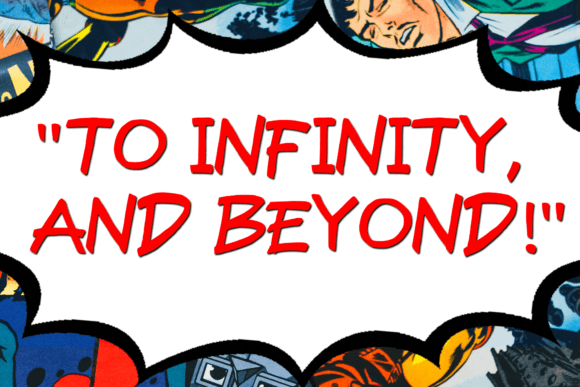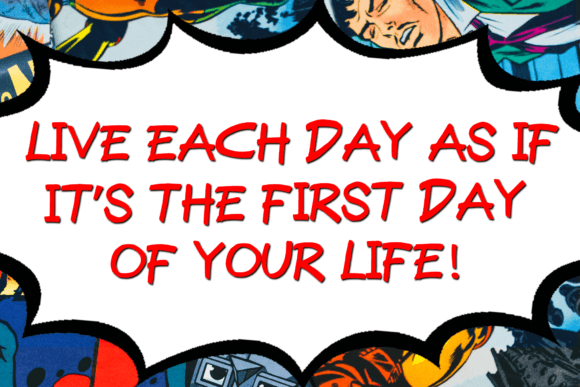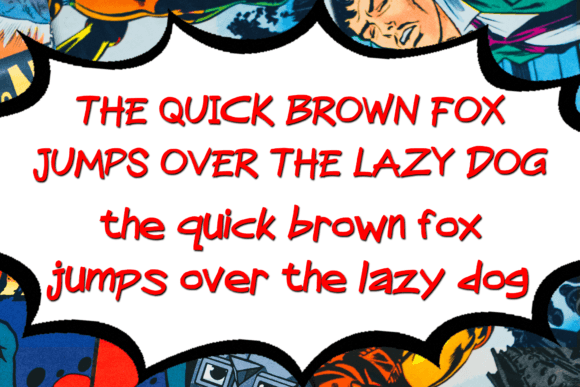
Introducing Action Comic Font: The Ultimate Handwritten Font for Creative Designs
Are you a designer or crafter looking for a font that can add a playful and energetic touch to your projects? Look no further than the Action Comic Font! This handwritten font is perfect for creating a wide range of designs, from t-shirts and kids’ book designs to greeting cards, stickers, and posters. With its incredibly versatile style, Action Comic Font is sure to become a favorite in your design toolkit.
What is Action Comic Font?
Action Comic Font is a carefully crafted handwritten font that exudes energy and playfulness. Its casual and relaxed style makes it perfect for designs that require a friendly and approachable tone. The font’s unique and quirky feel is sure to capture the attention of your audience and leave a lasting impression.
Key Features of Action Comic Font
- Handwritten style: Action Comic Font is a genuine handwritten font, giving it a personal and authentic feel.
- Energetic and playful: The font’s energetic and playful style makes it perfect for designs that require a fun and lively tone.
- Versatile: Action Comic Font can be used for a wide range of designs, from t-shirts and kids’ book designs to greeting cards, stickers, and posters.
- Easy to read: Despite its playful style, Action Comic Font is easy to read and understand, making it perfect for designs that require a clear and concise message.
Uses of Action Comic Font
Action Comic Font is an incredibly versatile font that can be used for a wide range of designs, including:
- T-shirts and apparel: Add a playful touch to your t-shirt designs with Action Comic Font.
- Kids’ book designs: Create engaging and fun kids’ book designs with Action Comic Font.
- Greeting cards: Add a personal touch to your greeting cards with Action Comic Font.
- Stickers and posters: Create eye-catching stickers and posters with Action Comic Font.
- Social media graphics: Use Action Comic Font to create engaging social media graphics that capture the attention of your audience.
Benefits of Using Action Comic Font
Using Action Comic Font in your designs can have numerous benefits, including:
- Increased engagement: The playful and energetic style of Action Comic Font can help increase engagement and capture the attention of your audience.
- Unique and quirky feel: Action Comic Font’s unique and quirky feel can help your designs stand out from the crowd.
Tips for Using Action Comic Font
Here are some tips for using Action Comic Font in your designs:
- Use it with bold colors: Action Comic Font looks great with bold and bright colors, so don’t be afraid to experiment with different color combinations.
- Experiment with different sizes: Action Comic Font can be used at different sizes, so experiment with different sizes to find the one that works best for your design.
- Pair it with other fonts: Action Comic Font can be paired with other fonts to create a unique and interesting design.
- Use it for headings and titles: Action Comic Font is perfect for headings and titles, so use it to add a playful touch to your designs.